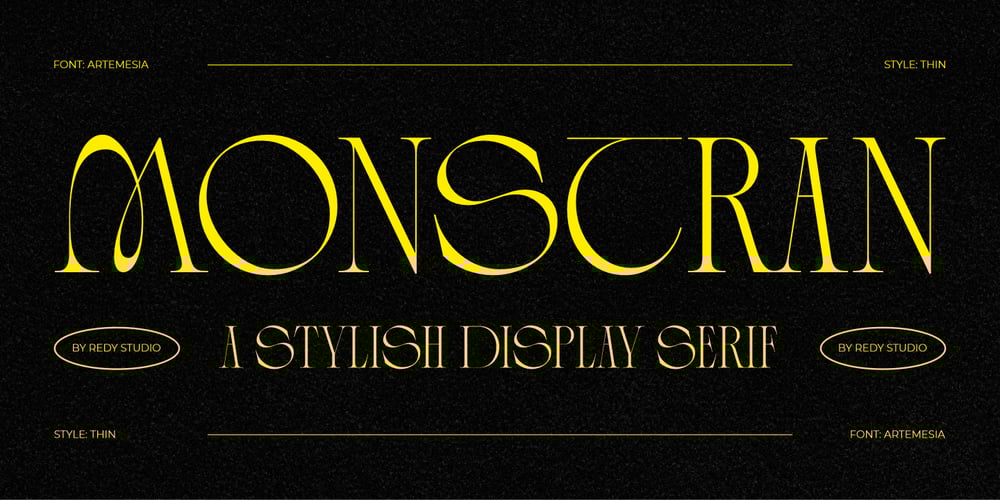
Monstran Font Family was designed by Nurul Fajri Redy and published by Redy Studio. Monstran contains 1 styles and family package options. Monstran, a stylish display serif font seamlessly merges elements of modern serif and old serif styles, resulting in a unique and captivating typographic experience. This font combines the elegance of modern serif with the charm of old serif styles, resulting in a captivating and versatile typographic choice.The old serif aspect of the Monstran font lies in the uppercase brings a sleek and sophisticated touch to the letterforms. It features clean lines, sharp edges, and a streamlined appearance, reflecting the elegance and professionalism associated with modern design.In contrast, the modern serif look style incorporated into theMonstran font lies in the lower case letters. Inspired by today’s display serif fonts, this style introduces more ornamental details, slightly curved serifs, and subtle variations in stroke width.Feel free to give me a message if you have a problem or question. Thank you so much for taking the time to look at one of our products.~Redy